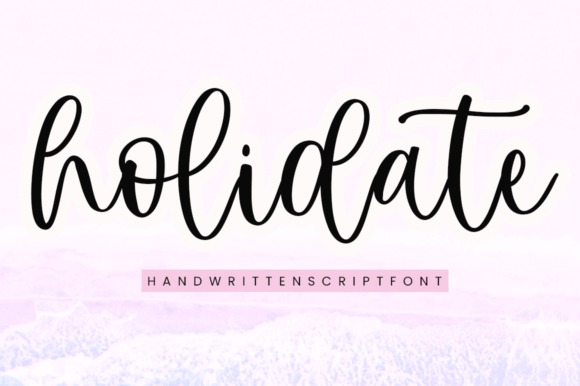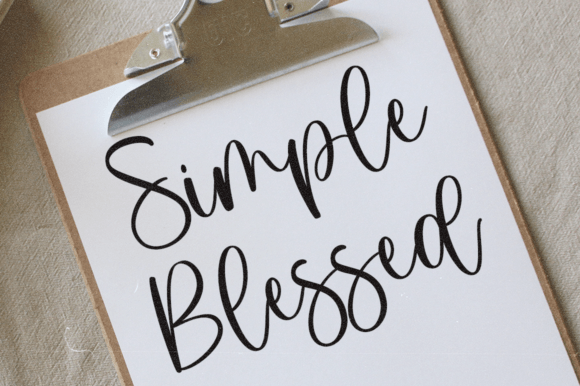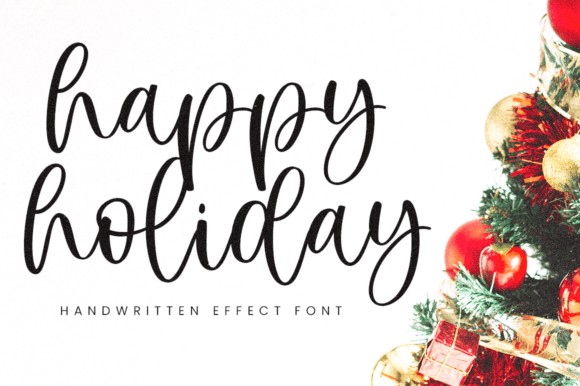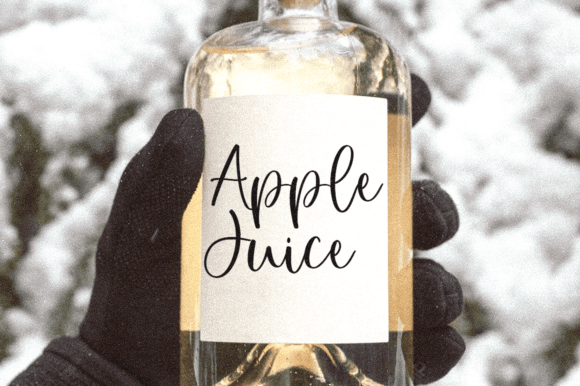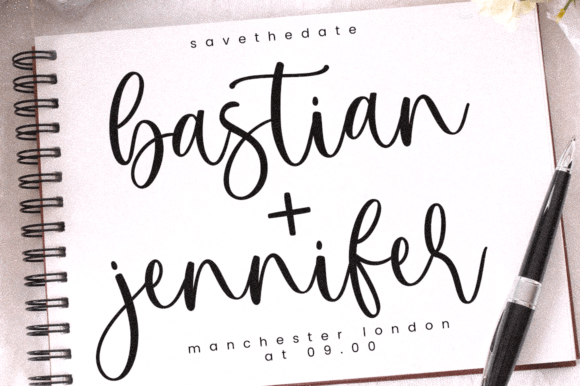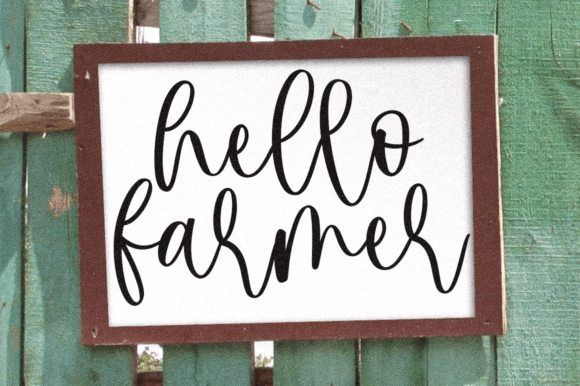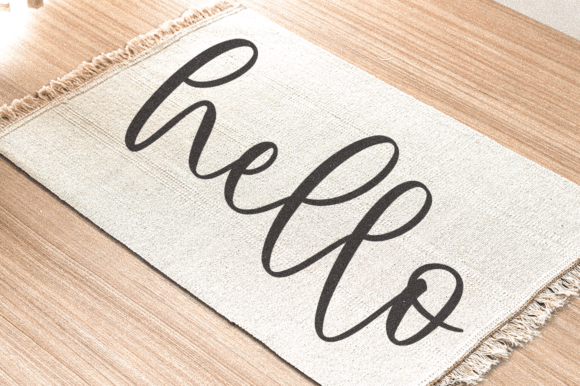
Holidate Font
Add Elegance to Your Work with Holidate Font
Holidate Font is a beautifully crafted script that brings a refined and graceful touch to any design project. With soft curves and stylish swashes, this handwritten font is the ideal choice when your project calls for elegance, warmth, and sophistication. It captures the feeling of handwritten charm while maintaining high readability across platforms.
Whether you’re working on a romantic wedding invitation or designing upscale branding material, Holidate Font has the power to elevate your creative vision. It was created to meet the needs of designers looking for a script that blends classic inspiration with modern execution.
There are many script fonts out there, but Holidate Font stands apart thanks to its perfect balance between charm and professionalism. Its strokes flow naturally, mimicking the grace of handwritten calligraphy, yet it maintains consistent clarity and spacing. Because of this, it’s a great option for everything from large headers to small footnotes.
Another reason to download Holidate Font is its versatility. It adapts well to both formal and casual designs. You can use it to add personality to product packaging, emphasize text in social media graphics, or create high-end logo designs. Best of all, its delicate appearance doesn’t compromise legibility—even at smaller sizes.
Here are just a few ideas for using Holidate Font in your projects:
• Wedding invitations and save-the-date cards
• Branding logos and product labels
• Stylish quote graphics for Instagram or Pinterest
• Event flyers and promotional posters
• Elegant headers for blogs and websites
• Business cards and thank-you notes
This font works well on both light and dark backgrounds, giving you full freedom in your creative direction. It also comes with stylistic alternates and ligatures, allowing you to customize the script’s look to better match your design’s mood.
Using Holidate Font lets your message stand out while still feeling approachable and beautiful. Its carefully crafted letterforms create a sense of trust and elegance, which makes it perfect for branding projects that aim to impress.